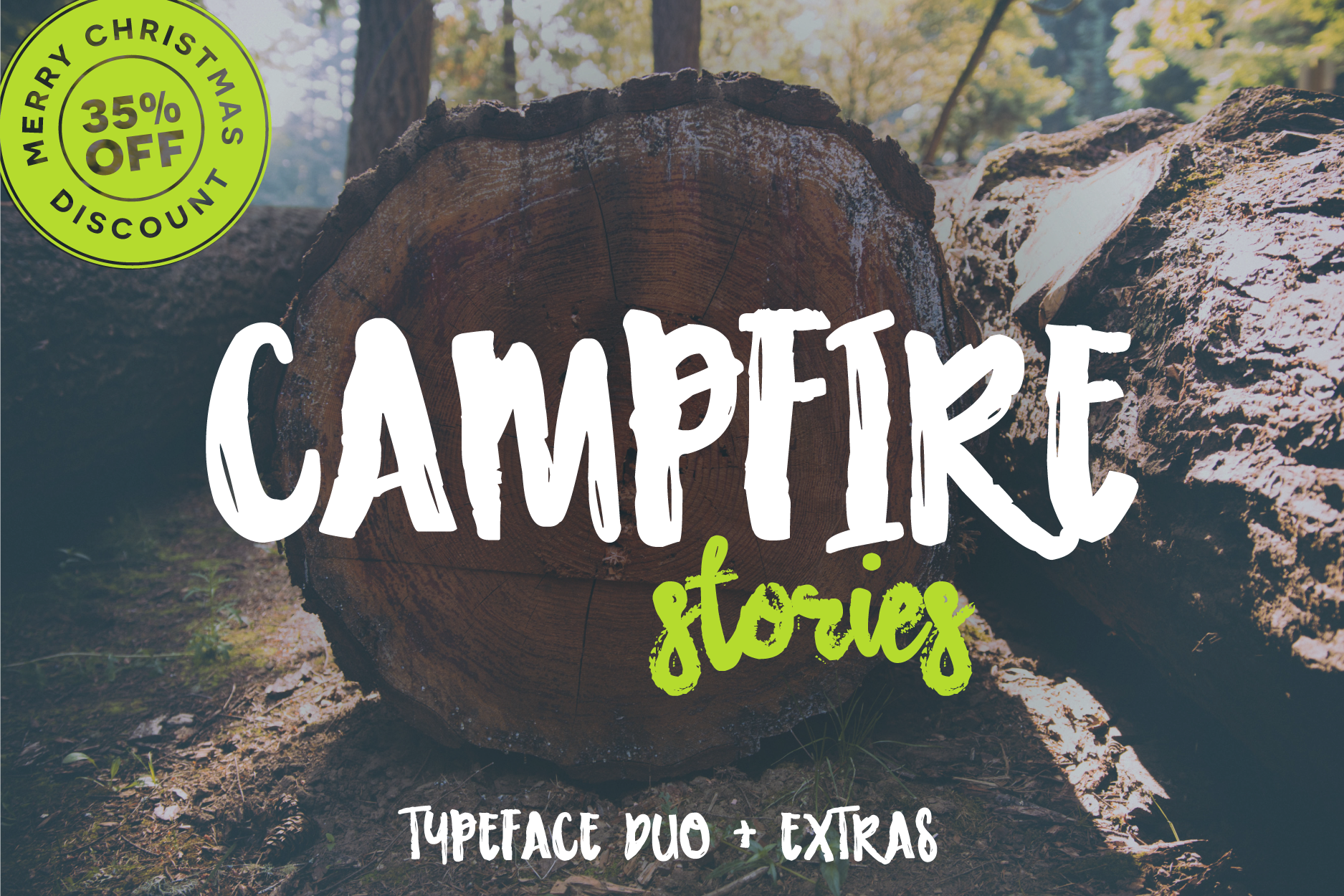
Campfire Stories Font Duo
Introducing a duo of hand-crafted fonts, meticulously designed to work in harmony with each other. Grab these and make your typography dreams come true!
Included in the pack is 26 marker style swashes in font form for you to give your designs that hand-crafted touch.
THE FONTS INCLUDED
Campfire Stories Regular - a hip marker style sans serif consisting of uppercase only characters. International language is supported.
Campfire Stories Brush - a roughened and artsy hand-lettered script consisting of all lowercase letters, punctuation and numerals. A variety of double letter characters are also available, accessible in the Adobe Illustrator Glyphs panel, or in Adobe Photoshop Glyph Panel. Int'l language characters supported as well.
Campfire Stories Swashes - 26 swashes available in two different marker styles accessed by typing upper or lowercase keys.